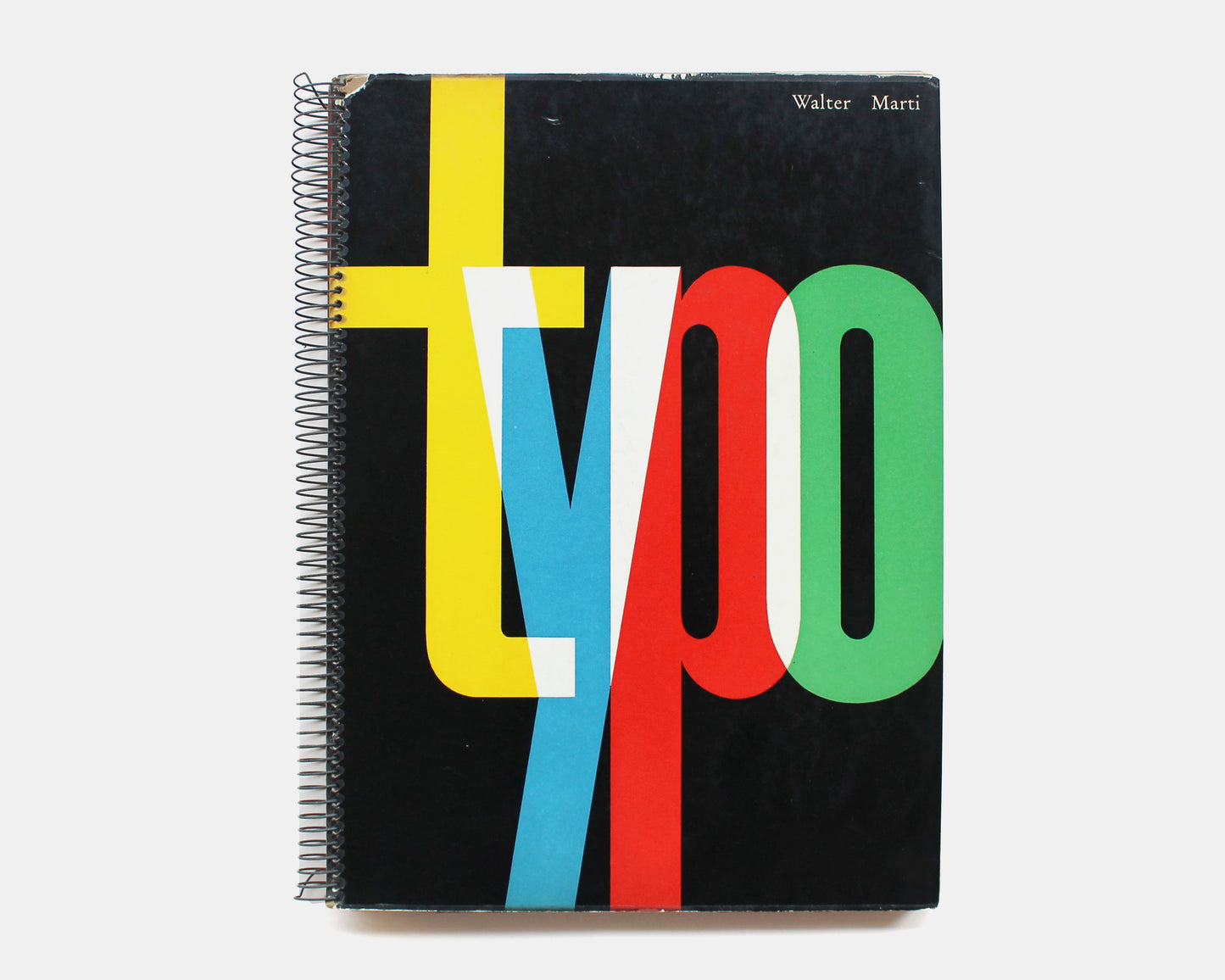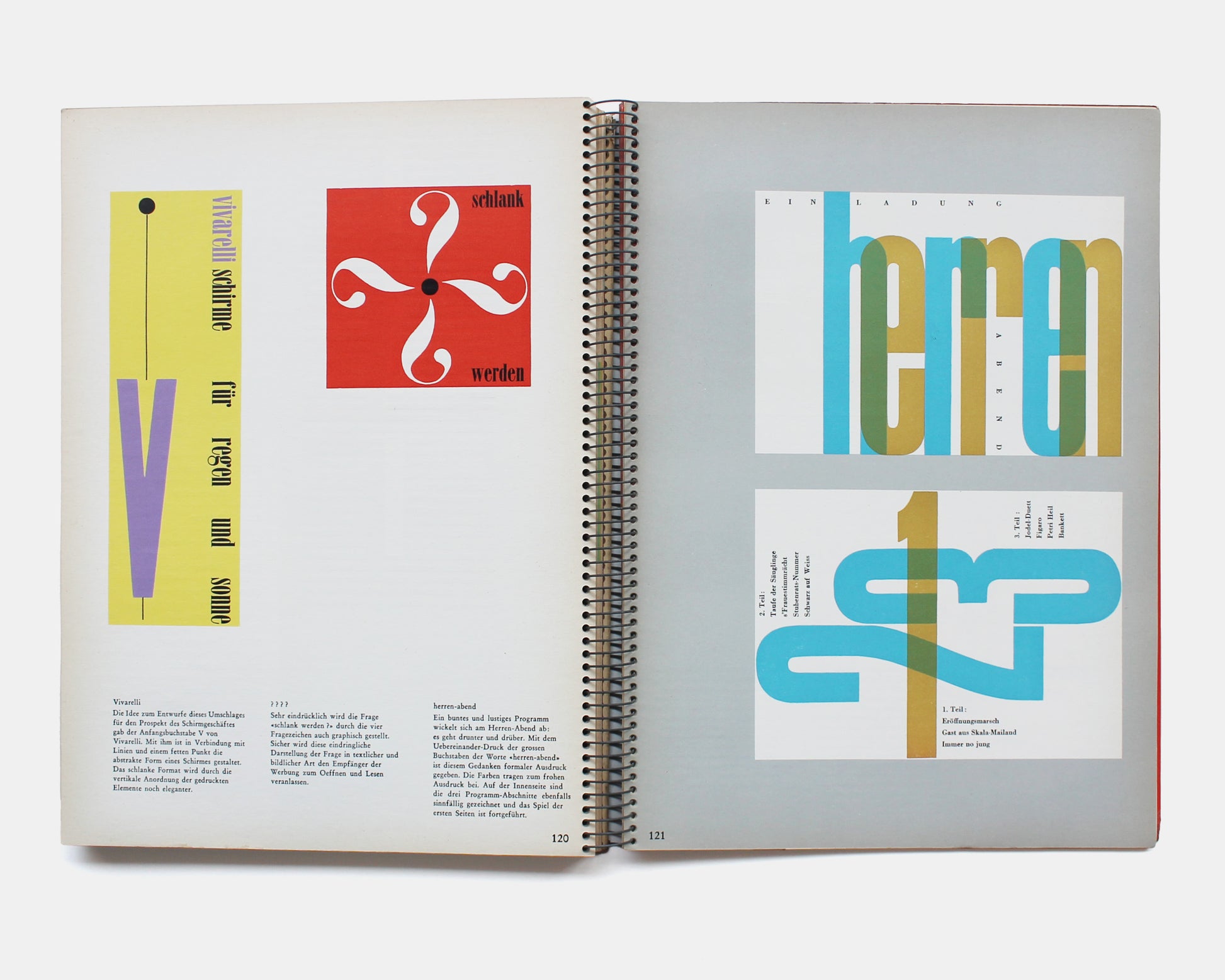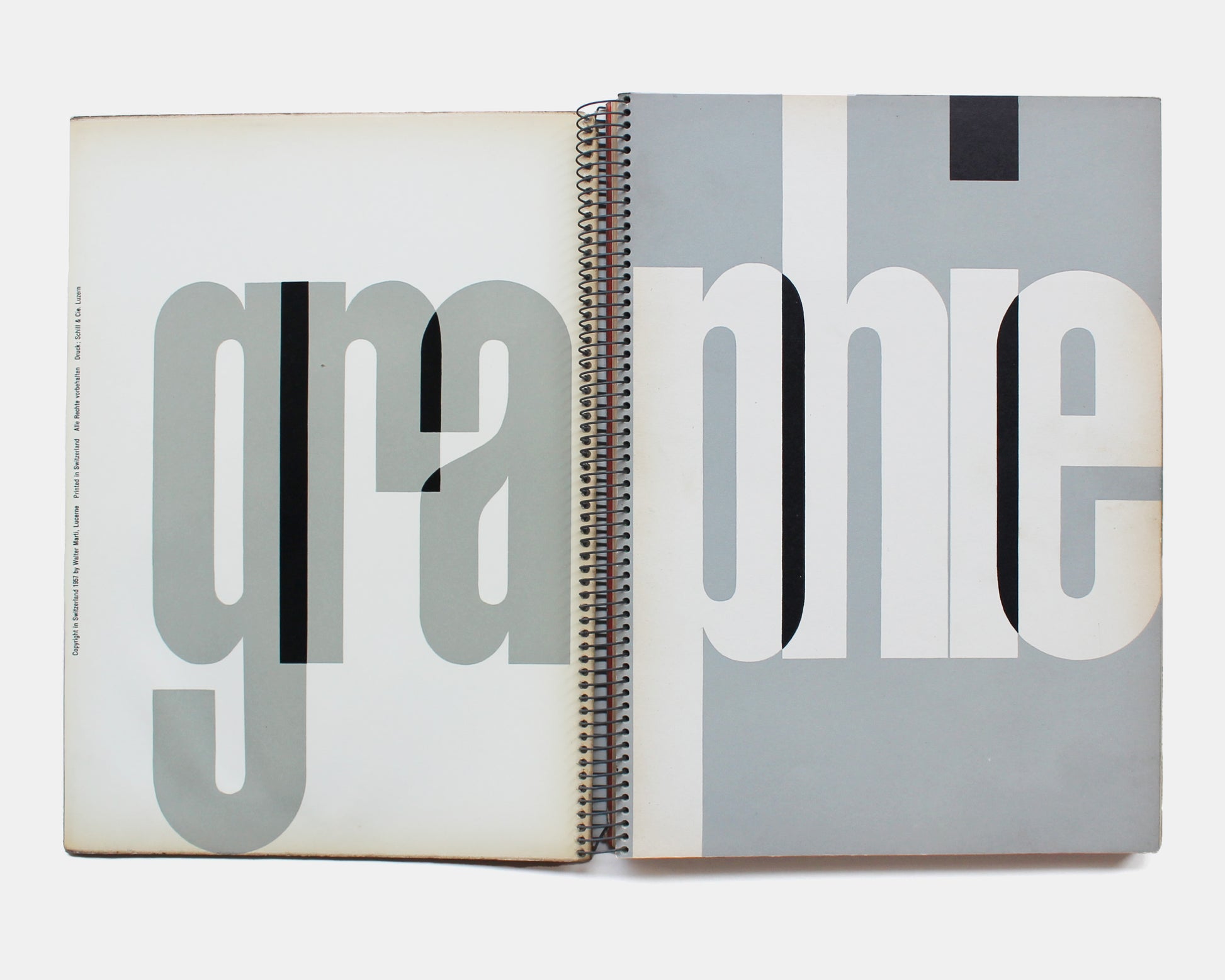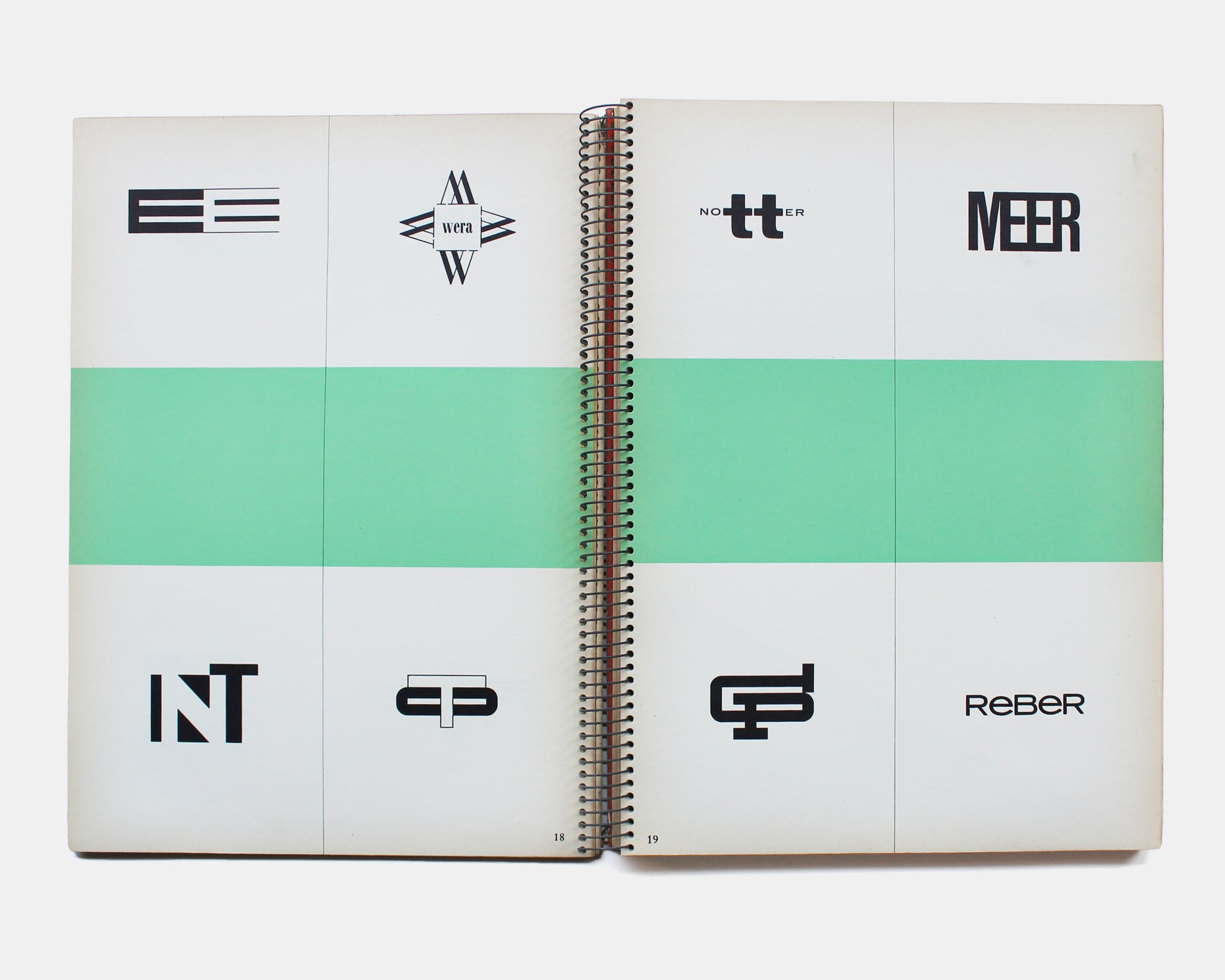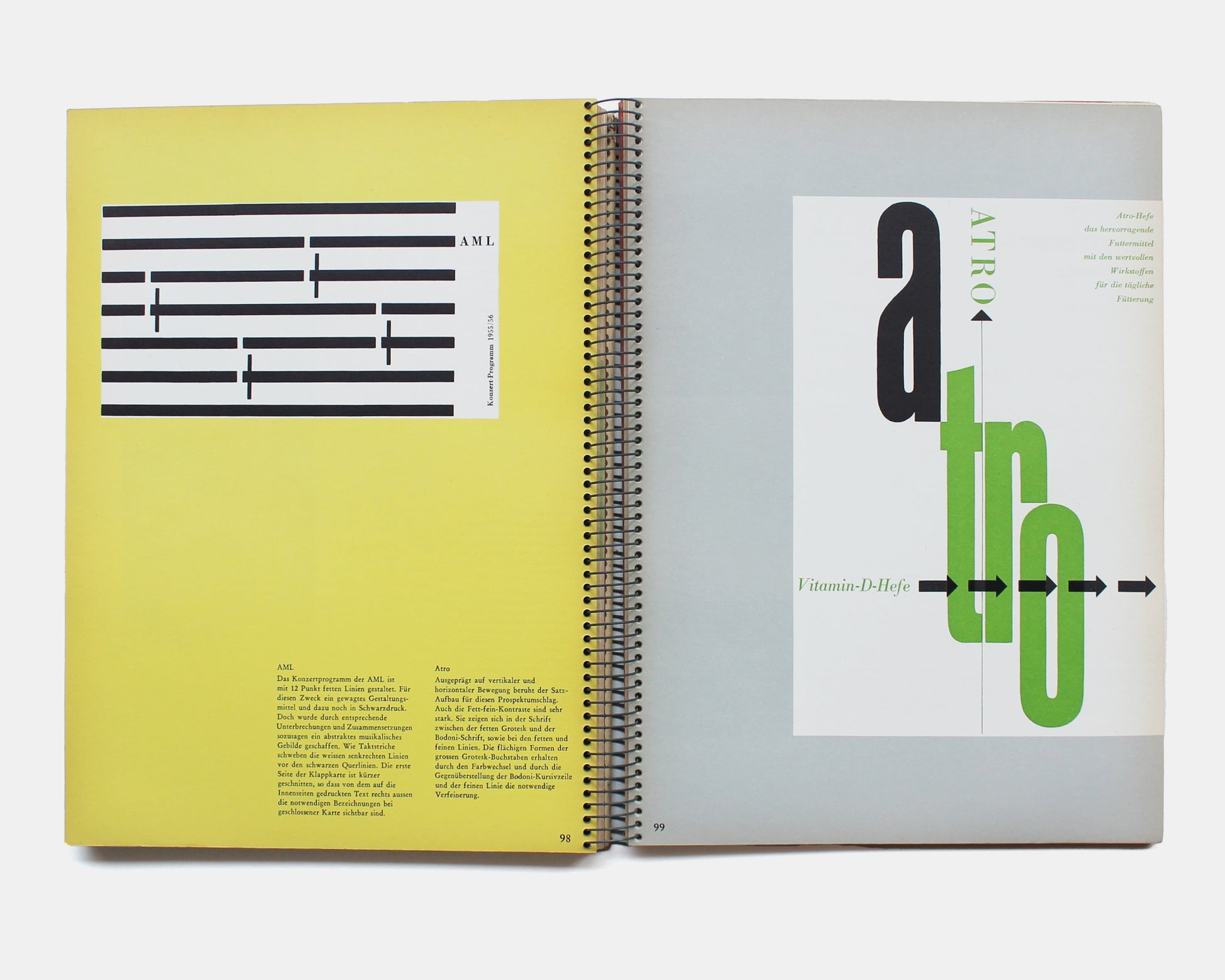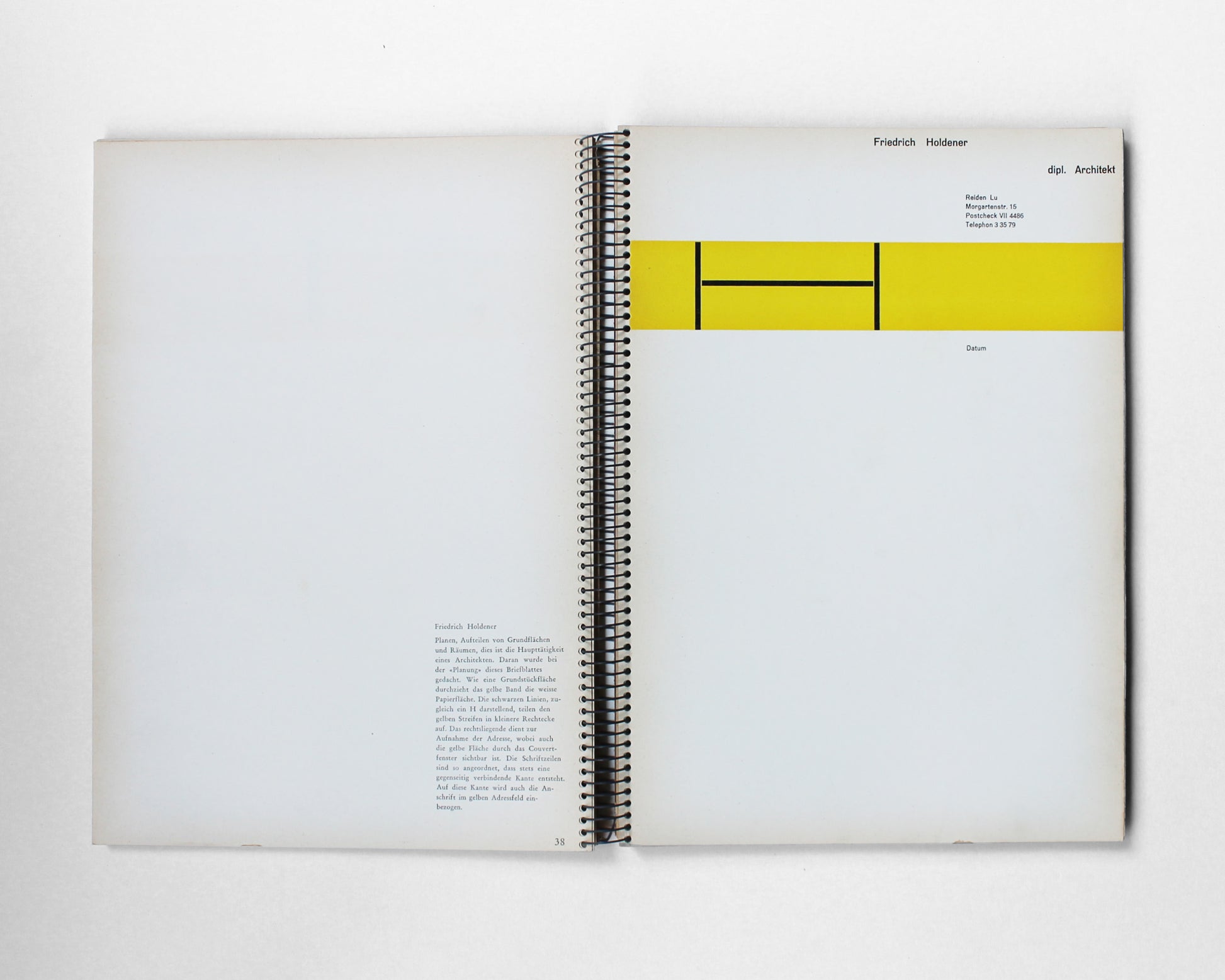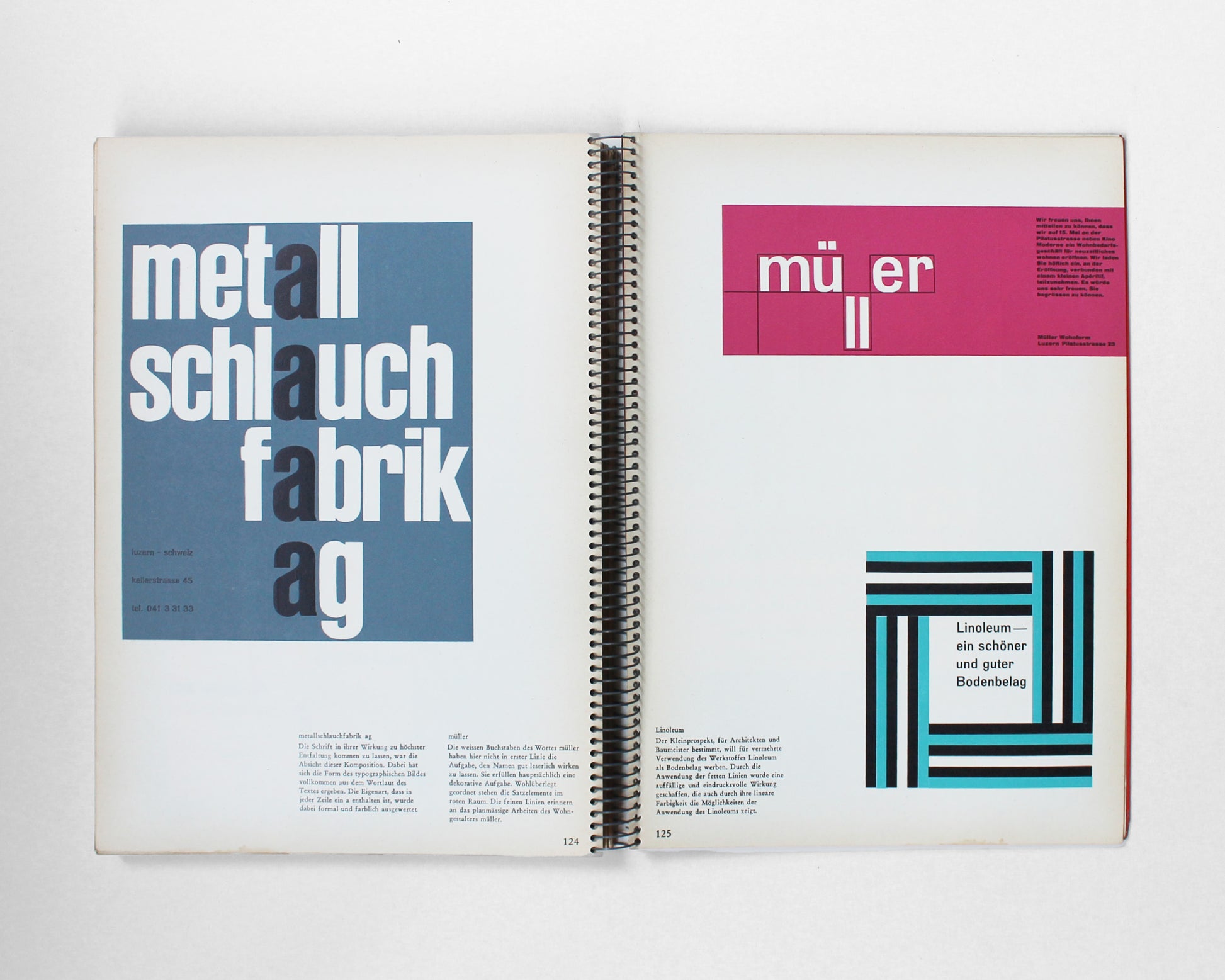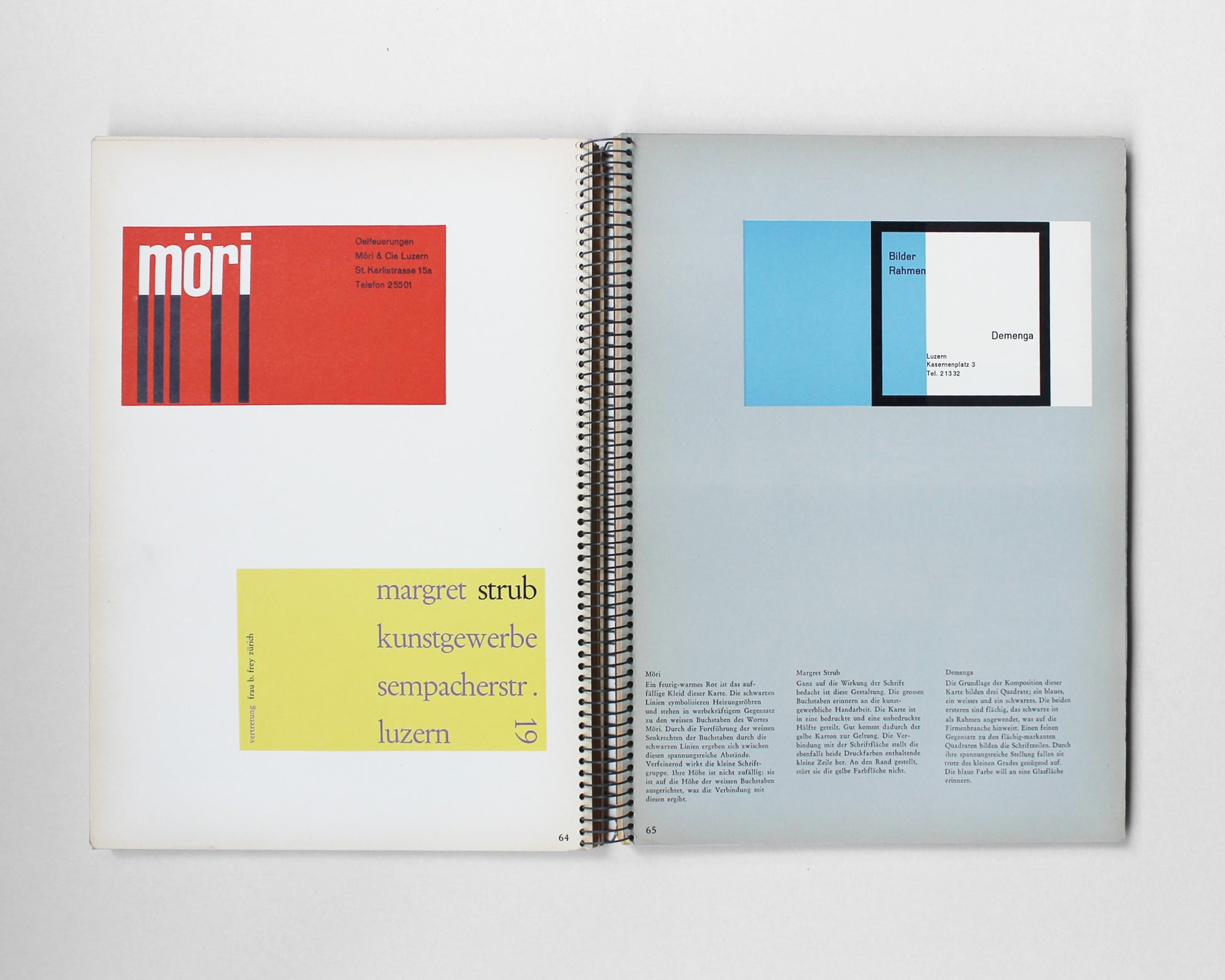
Typographie by Walter Marti, 1957 [Post WWII Swiss Typography and Graphic Design]
Typographie by Walter Marti (Lucerne), 1957. Druck: Schill & Cie. Luzern, Switzerland. 8.5 x 11.75, pp. 134 with German text. Designed by Walter Marti.
Typographie is the follow-up book of the same title authored by Walter Bangerter and Walter Marti in 1948. Beautifully printed and designed, this lavishly illustrated (every page) volume explores contemporary (post WWII) Swiss typography and graphic design with examples printed on a variety of paper stocks, using refreshing color combinations and experimental printing techniques.
Introduction by Marti with short commentary throughout including sections featuring: logotype, letterhead, business card, labels, wine lists, advertisements, folders and bookplates. An important and valuable contribution to the subject.